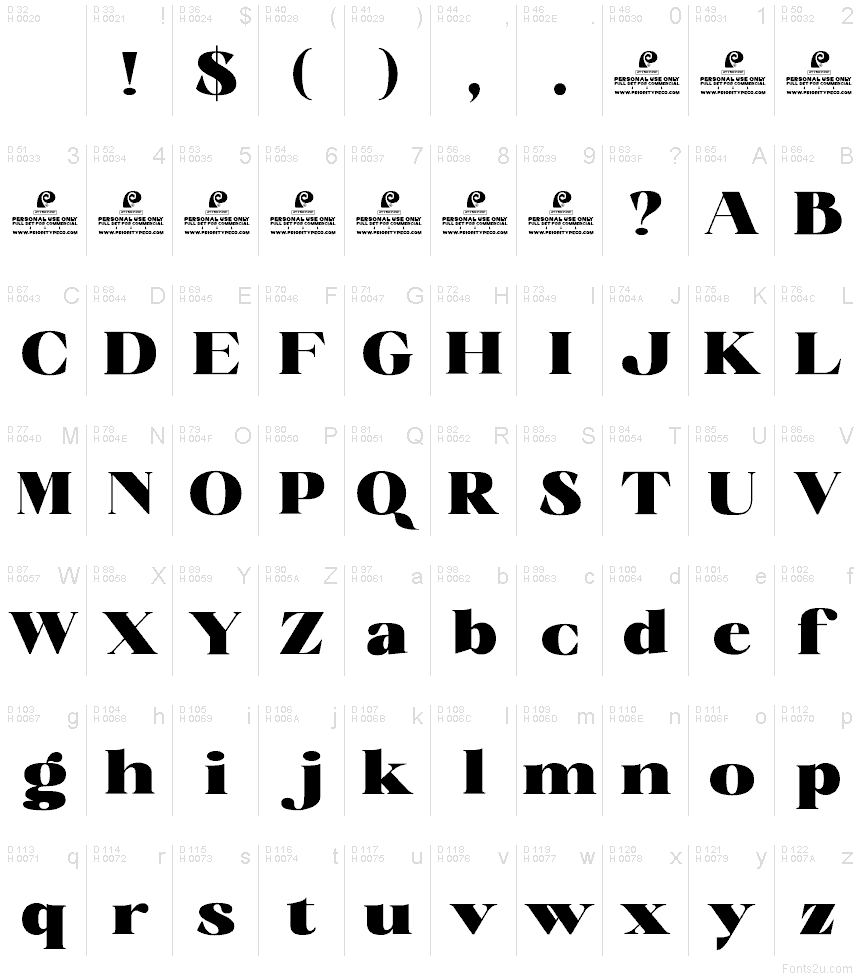
Radiant Charisma DEMO Black
Radiant Charisma Black font by Prioritype Co is a bold, expanded serif that delivers an elegant and sophisticated design. With a classic yet contemporary appeal, it blends traditional influences with modern aesthetics for a substantial visual presence. Perfectly refined for projects that demand attention, its clean lines and formal style suit both digital and print designs.
Suitable for branding projects, headlines in magazines and newspapers, luxury goods packaging, logo making, slogans on posters or flyers. Use it on other advertising materials such as brochures or catalogs – the free vibrant font excellently enhances editorial layouts as well creating strong page titles on websites.